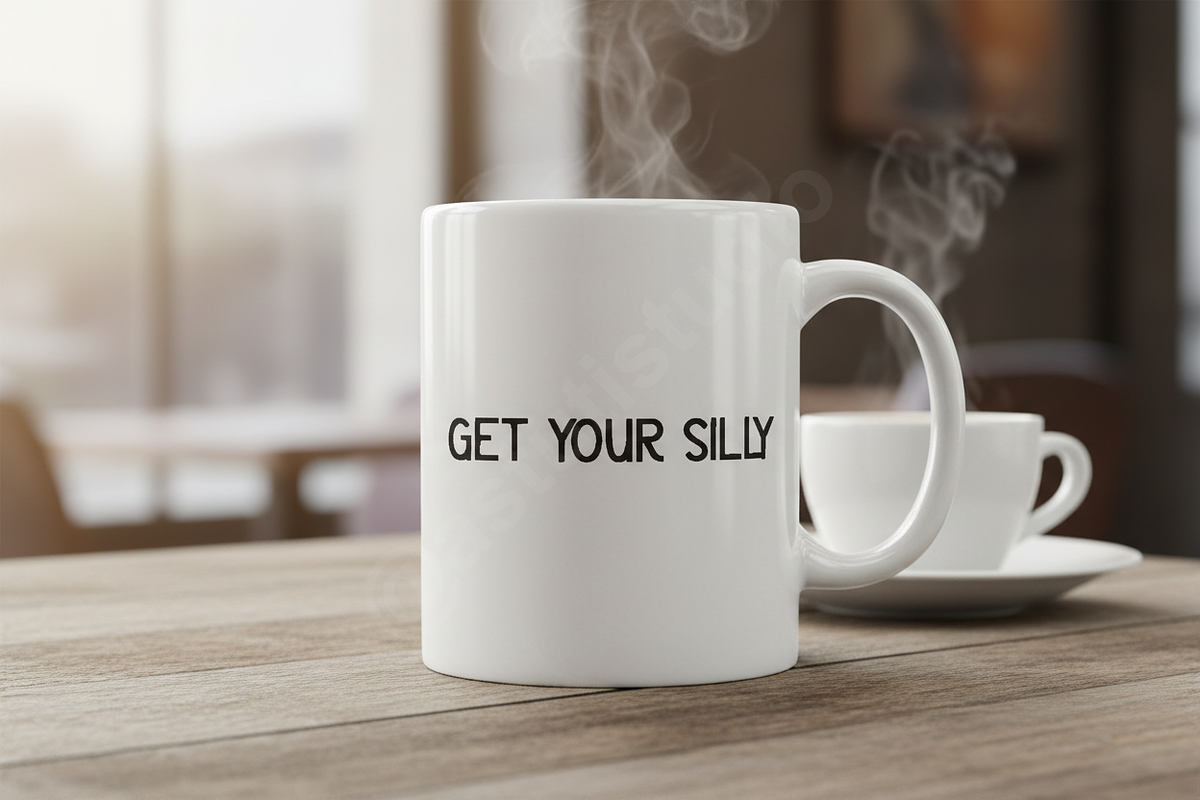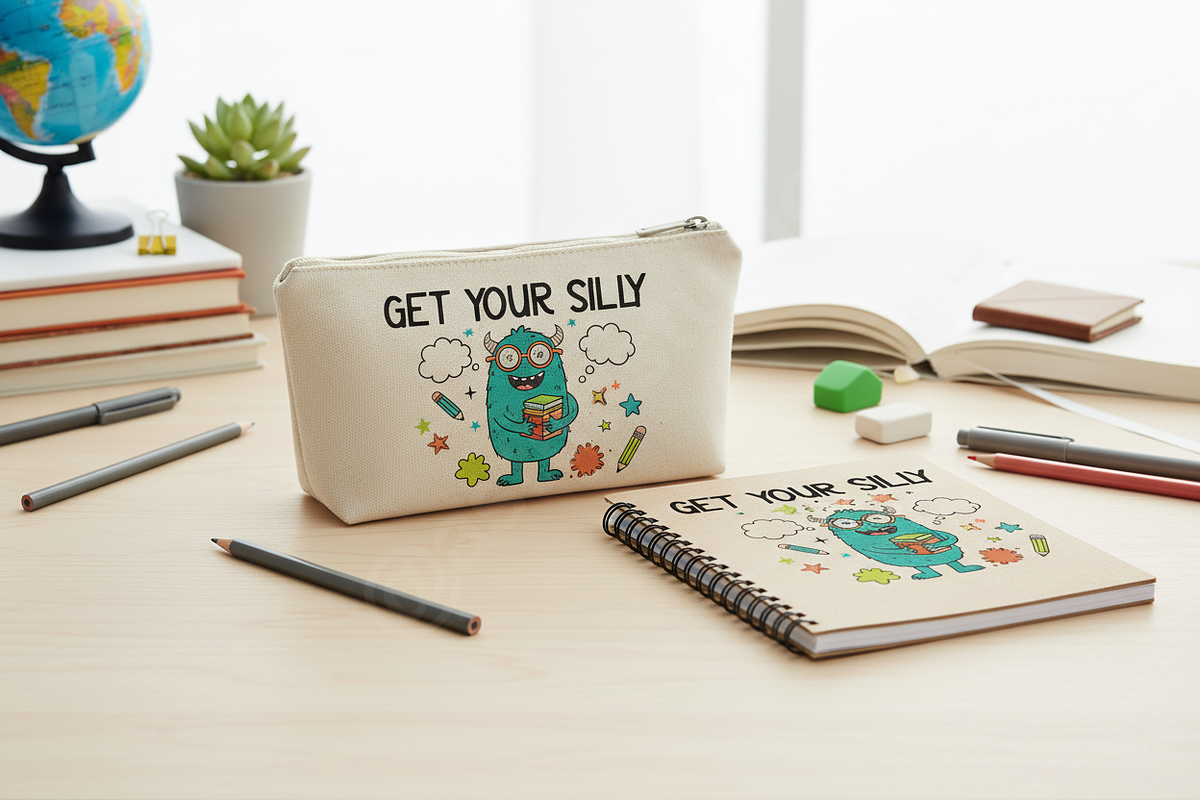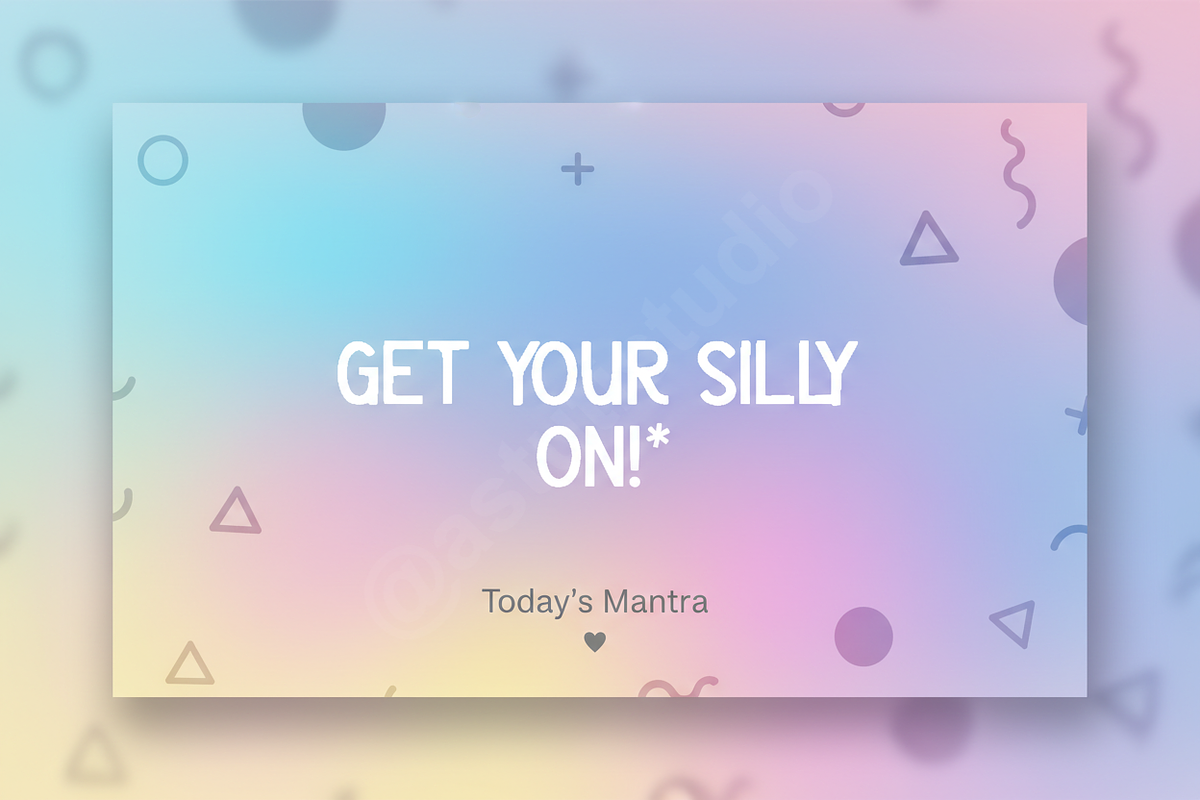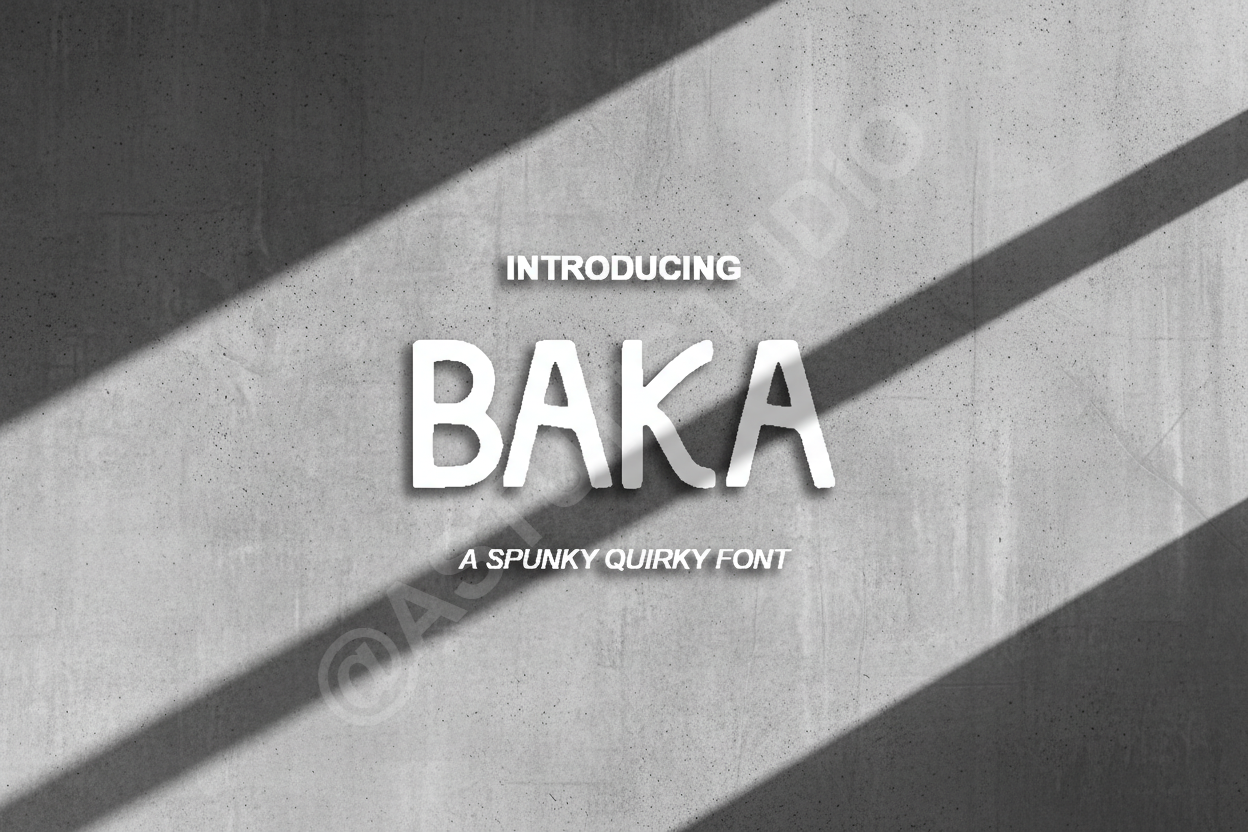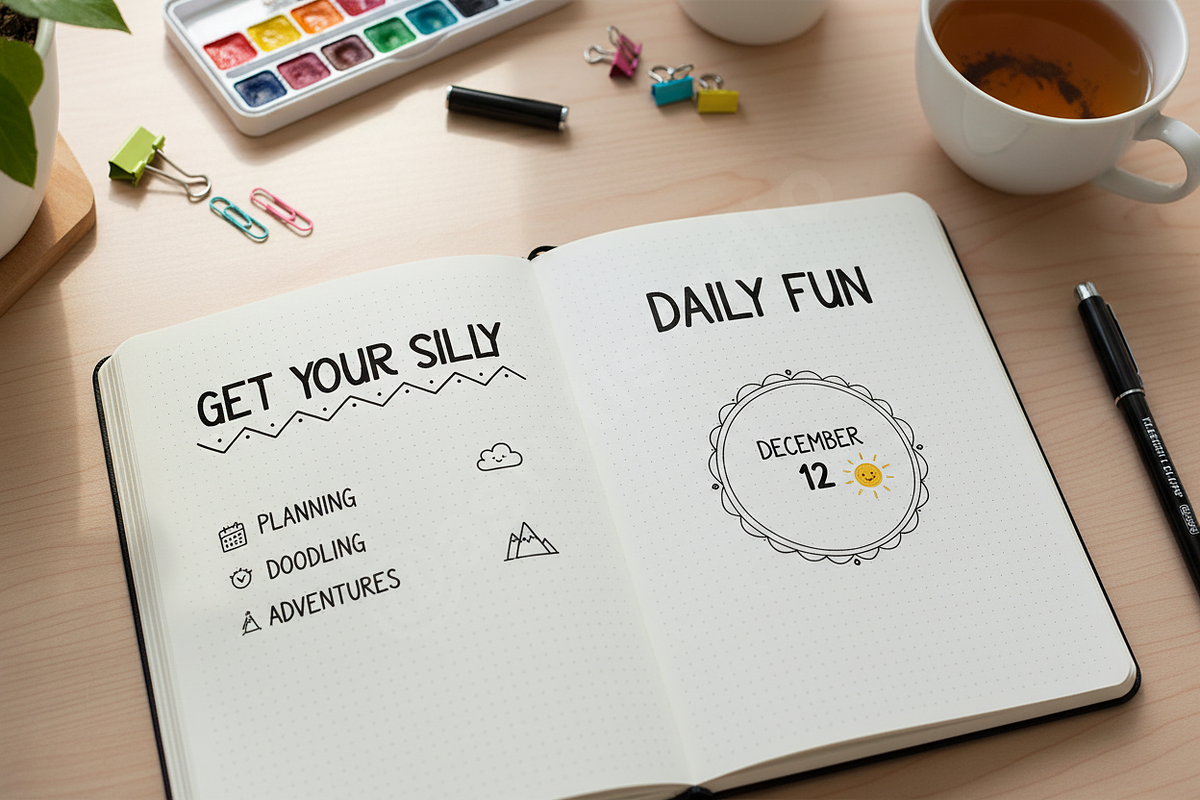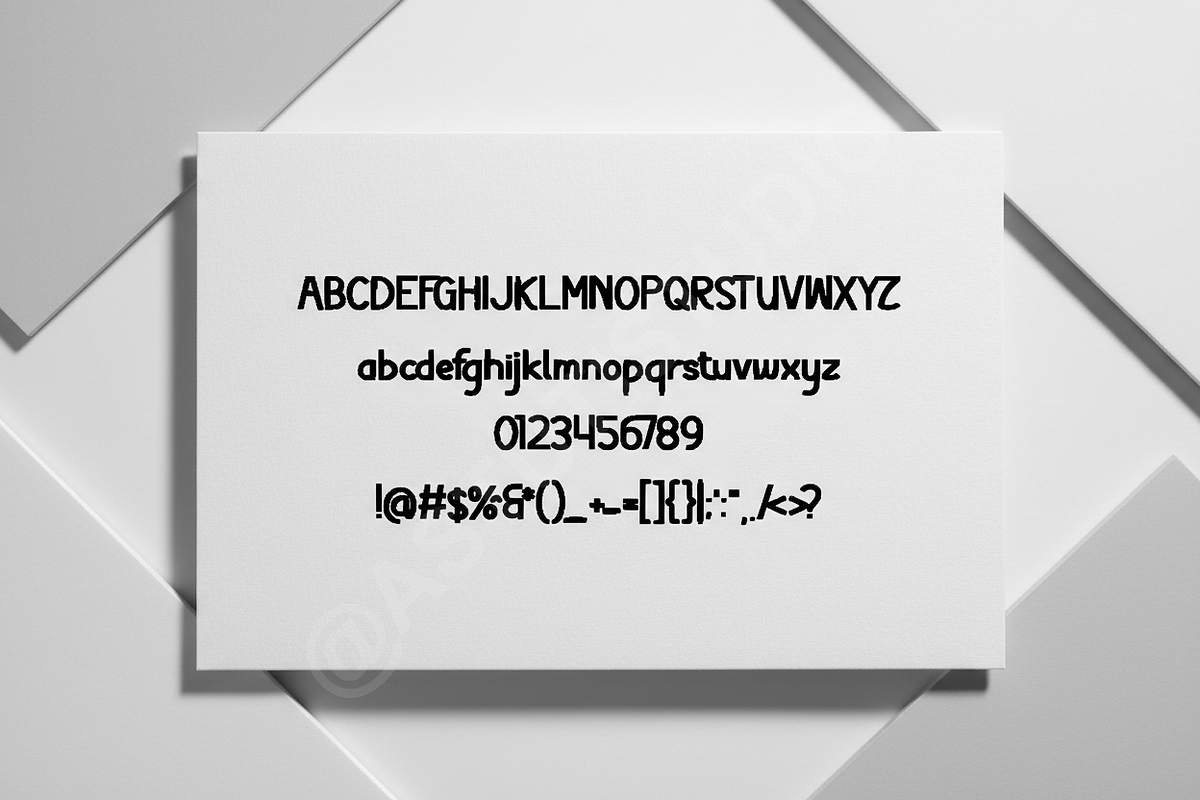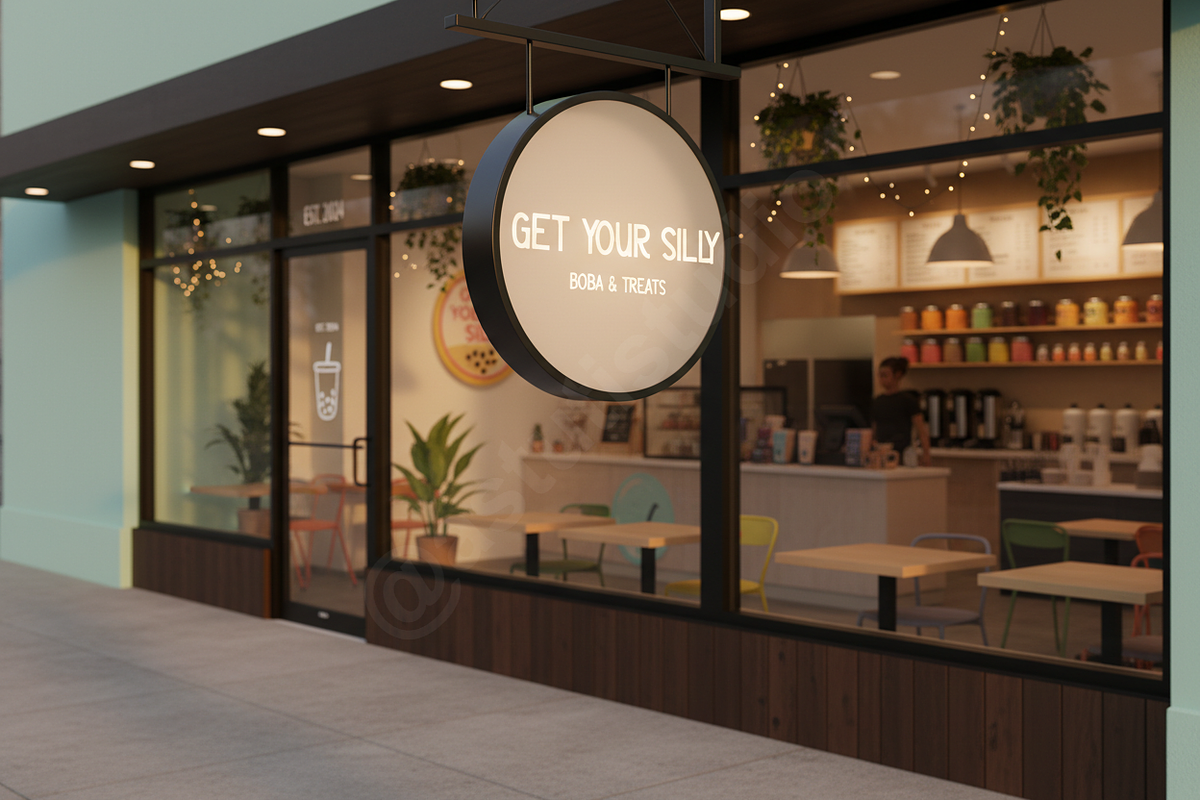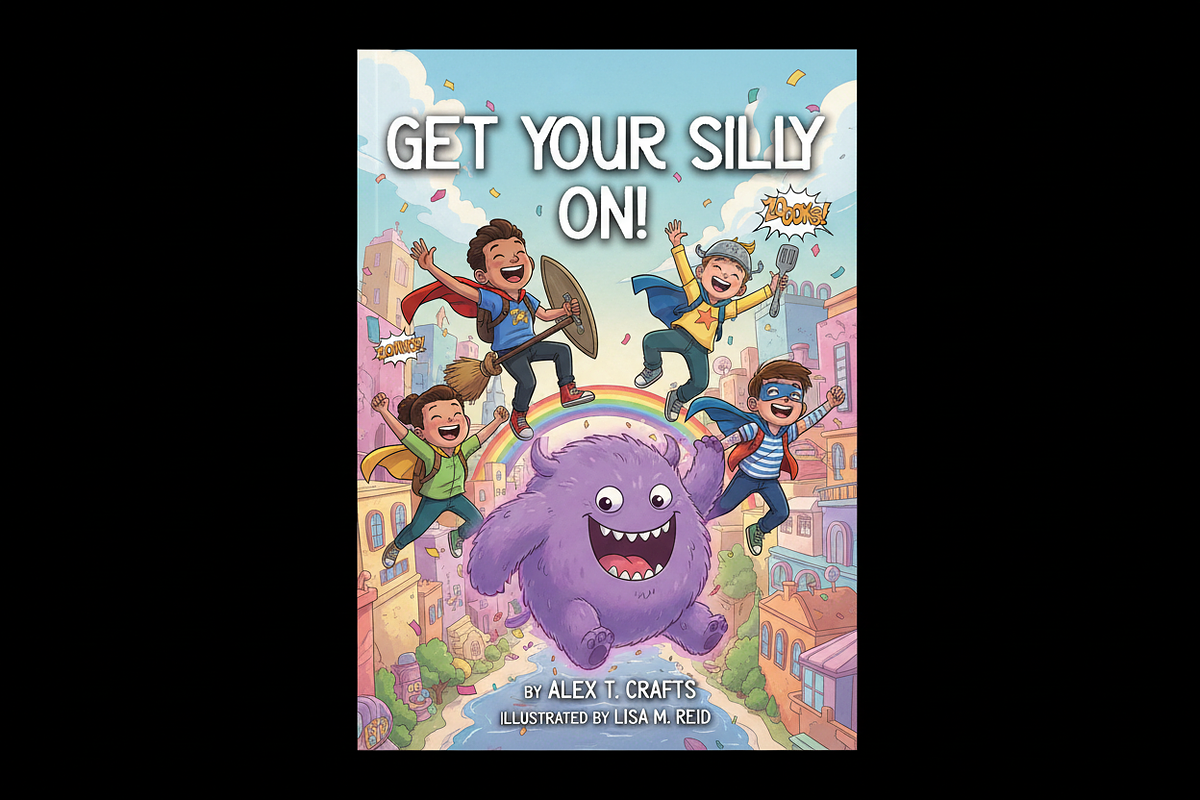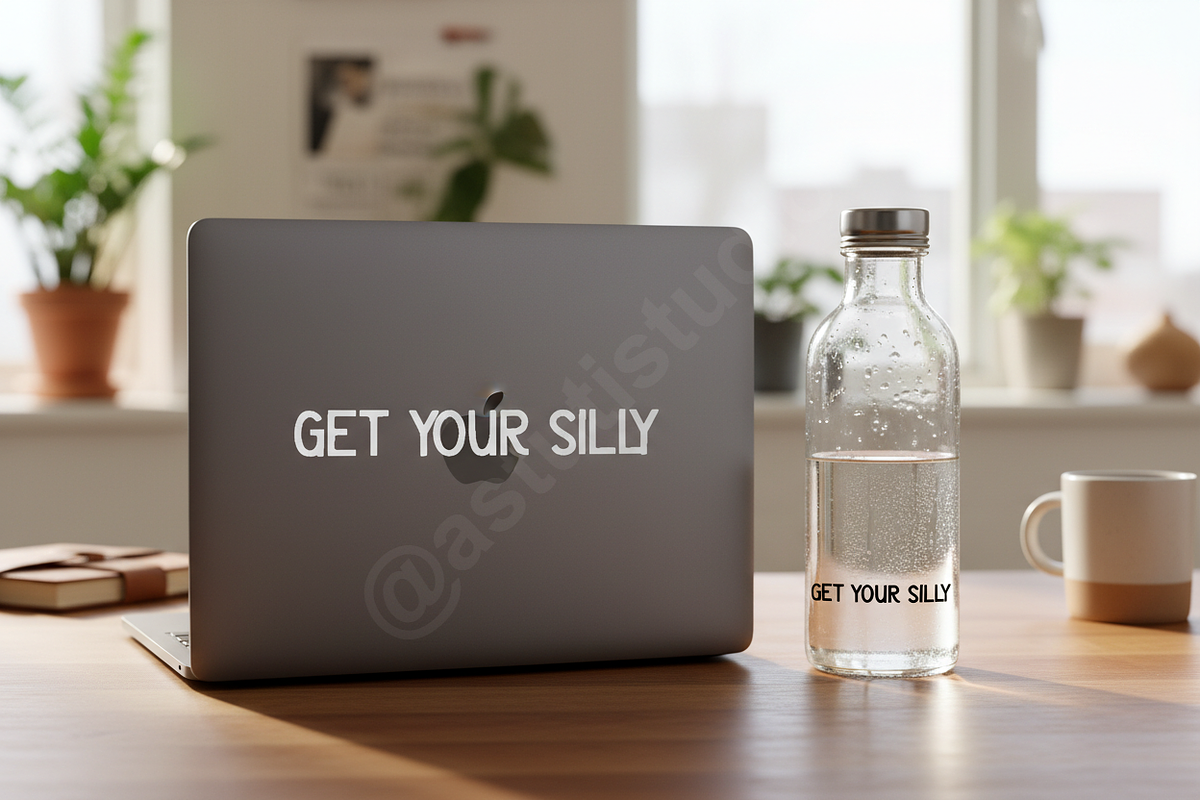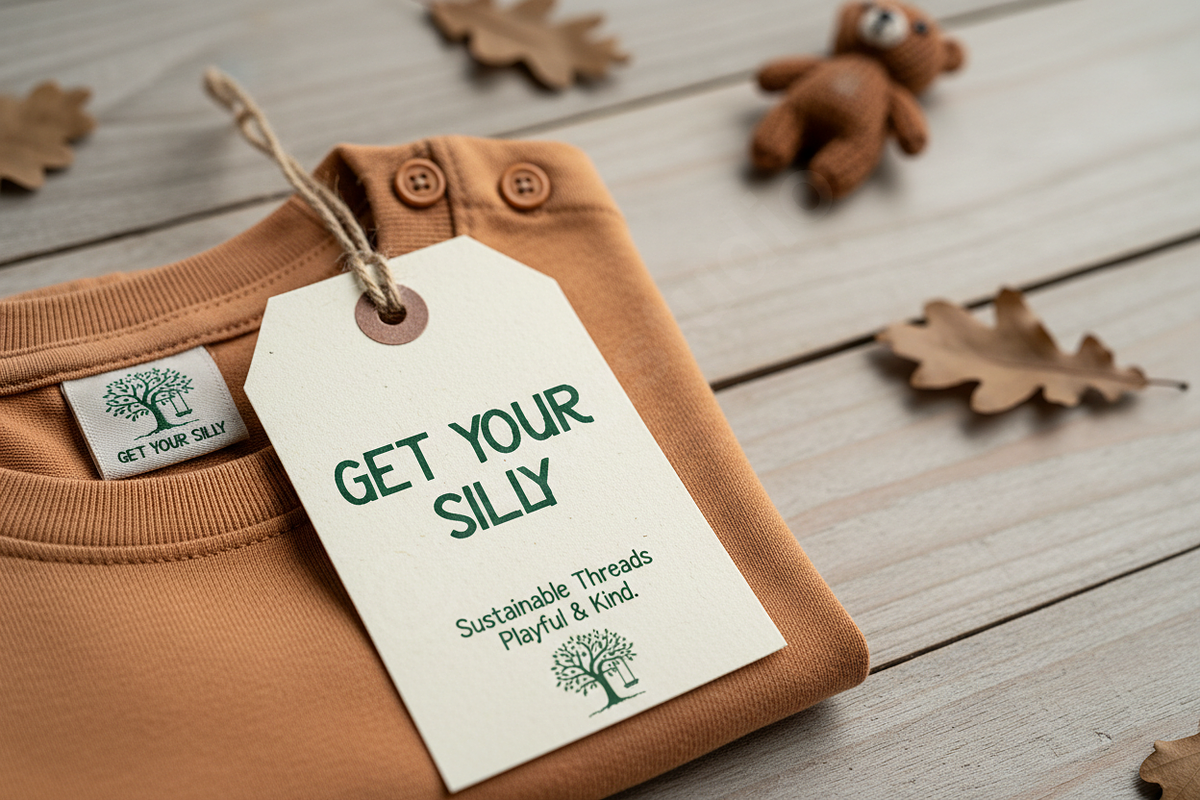
Baka Kawaii Display Font | Cute Japa
✨ INTRODUCING BAKA ✨
Baju Cute Handwritten Kids Font | Playful Display Font for Teacher Classroom Decor, Procreate, Crafting SVG, Cricut Projects & Apparel Design.
Elevate your designs with Baka, a Kids typeface carefully crafted to bring a professional touch to your creative projects.